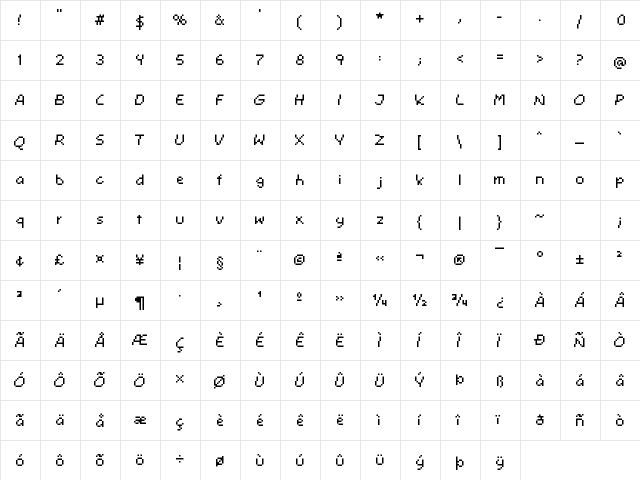
Comicoro Medium
Design Context for Comicoro Typeface
Comicoro trades formality for fun, with bouncy, characterful letterforms that bring warmth and energy to any project.
Font Pairing: Pairs well with a rounded or humanist sans for body copy, maintaining the friendly tone without relying on Comicoro to carry extended reading.
Pro Tip: Avoid using Comicoro for long passages of text — it works best for headlines, labels, and short calls to action.